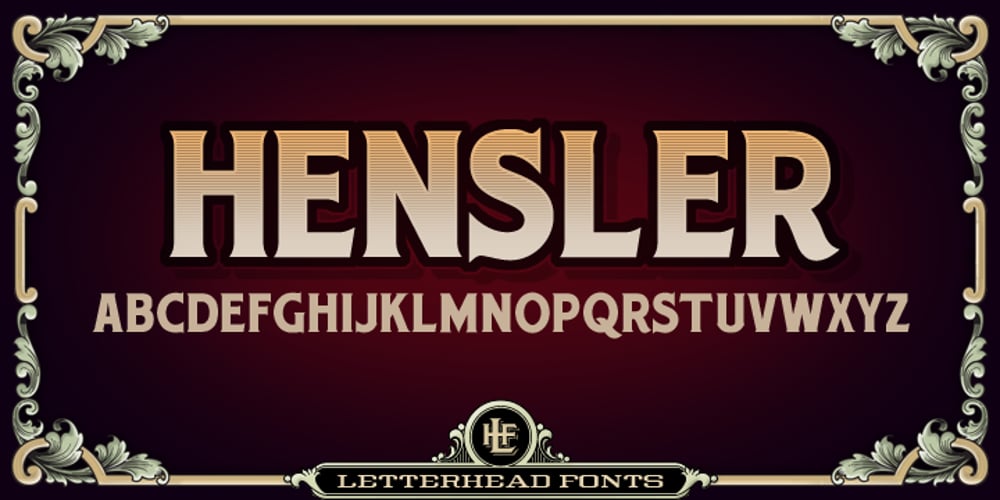
LHF Hensler
LHF Hensler font
LHF Hensler Font Family was designed by Chuck Davis and published by Letterhead Fonts. LHF Hensler contains 1 styles and family package options. Unusual square style. Suprisingly easy to read even at small sizes.